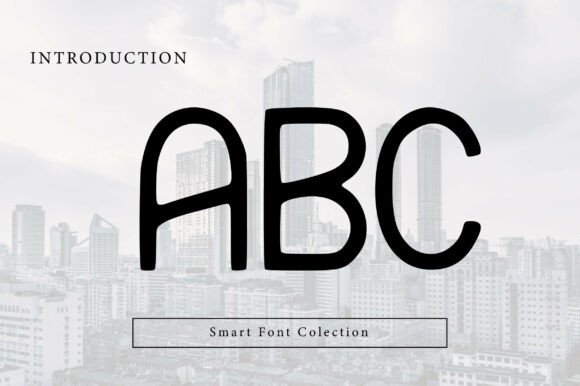
Avero Font: The Ultimate Choice for Modern Designers
In the world of typography, fonts play a crucial role in conveying the tone and personality of a brand or design. Avero Font, a clean and modern handwritten sans-serif typeface, has gained popularity among designers and crafters for its casual, friendly, and minimalist personality. In this article, we’ll dive into the features and benefits of Avero Font, exploring its uses, design philosophy, and why it’s perfect for various design projects.
The Avero Font Difference
Avero Font boasts rounded letterforms, even strokes, and a natural handwritten feel, making it highly readable while maintaining a relaxed and approachable style. Its clean and modern design ensures that it feels human yet structured, making it an excellent choice for designers seeking a font that exudes warmth and clarity.
Design Philosophy
Avero Font was designed to bridge the gap between digital and print platforms, where clarity and warmth are equally important. Its creator aimed to craft a font that would feel approachable, friendly, and easy to read, while maintaining a level of sophistication and elegance. The result is a typeface that works beautifully across various mediums, from branding and logos to UI/UX design, mobile apps, and social media graphics.
Avero Font’s versatility makes it an excellent choice for a wide range of design projects, including:
• Branding and Logos: Avero’s unique personality and clean design make it perfect for creating memorable brand identities and logos that stand out.
• UI/UX Design: Its readability and friendly feel ensure that user interfaces and experiences are both intuitive and engaging.
• Mobile Apps: Avero’s clean and modern design adapts well to various screen sizes and resolutions, making it an excellent choice for mobile app design.
• Social Media Graphics: Avero’s approachable and friendly personality shines through in social media graphics, helping to create engaging and shareable content.
• Blogs and Educational Content: Avero’s readability and clarity make it perfect for creating educational content, blog posts, and articles that require a clean and easy-to-read typeface.
• Lifestyle Projects: Avero’s relaxed and approachable style makes it an excellent choice for lifestyle projects, such as brochures, flyers, and posters.
Why Choose Avero Font?
With so many fonts available, why choose Avero Font? Here are a few compelling reasons:
• Readability: Avero’s clean design and even strokes ensure that text is highly readable, even at small font sizes.
• Versatility: Avero works beautifully across various design projects, from digital to print platforms.
• Uniqueness: Avero’s modern handwritten sans-serif design sets it apart from more traditional typefaces.
• Friendliness: Avero’s approachable and friendly personality makes it perfect for designs that require a human touch.
Avero Font is an exceptional choice for designers and crafters seeking a clean, modern, and friendly typeface for their projects. Its versatility, readability, and unique personality make it perfect for a wide range of design applications. Whether you’re working on branding, UI/UX design, or lifestyle projects, Avero Font is sure to deliver a professional and engaging result. With its ability to work beautifully across both digital and print platforms, Avero Font is an excellent addition to any designer’s toolkit.